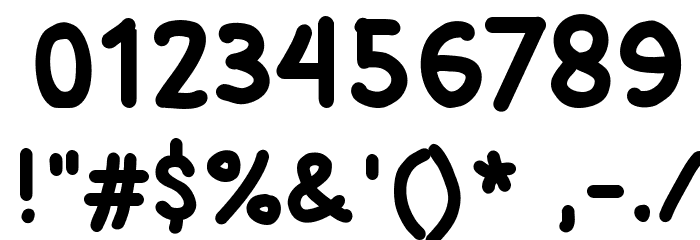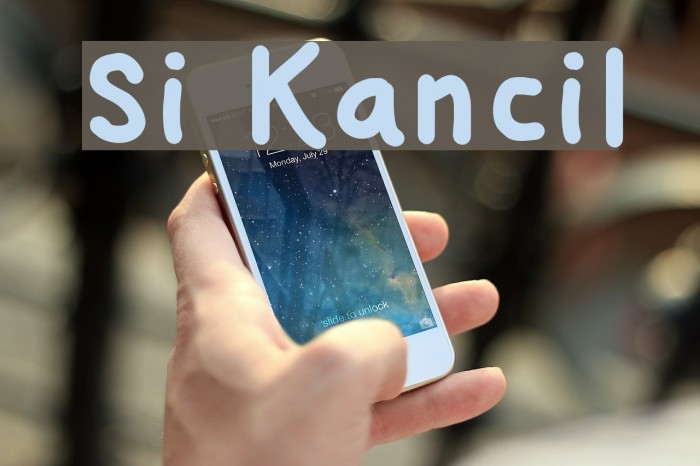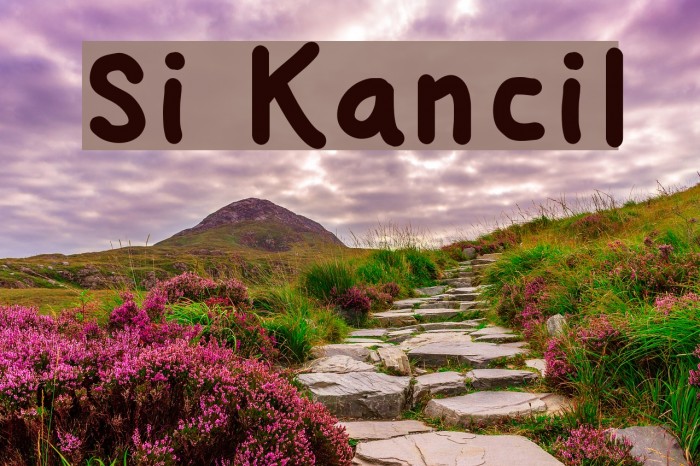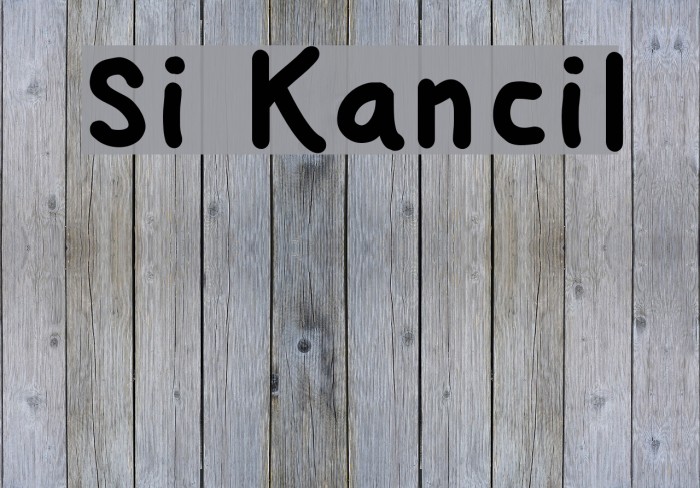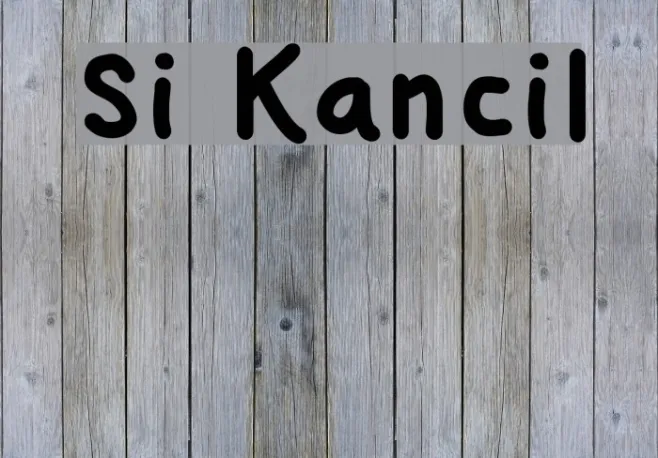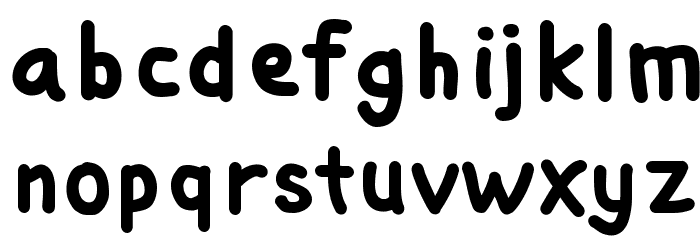
Si Kancil Font
This playful and whimsical font features rounded, bold characters that exude a friendly and approachable vibe. The letters are slightly irregular, giving a hand-drawn appearance that adds a touch of personality and charm. The font maintains a consistent stroke width, ensuring readability while retaining its unique style. It includes a full set of uppercase and lowercase letters, numerals, and a variety of special characters, making it versatile for different design needs. The overall look is casual and fun, perfect for projects that aim to convey warmth and creativity.
A playful, hand-drawn style font with rounded, bold characters.
• Proposed Projects: Ideal for children's books, playful branding, greeting cards, and creative posters.
• Category: Handwritten
• Overall Style: Casual, Playful
• Use Case: Headlines, Logos, Posters